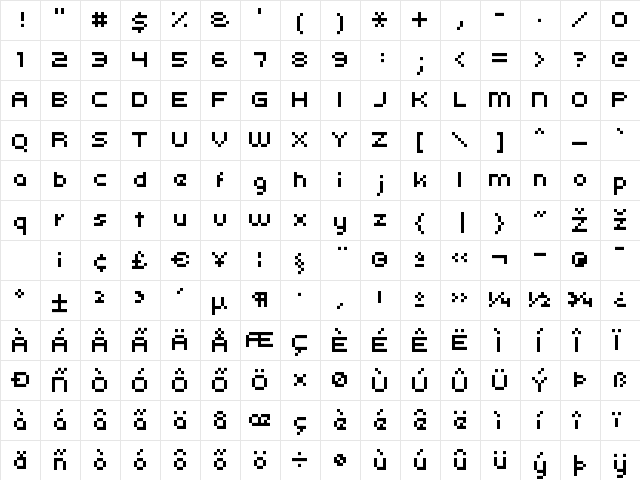
kroeger 05_53 Regular
| Foundry | Adobe Systems Incorporated |
| Designer | Craig Kroeger |
Design Context for kroeger 05_53 Typeface
kroeger 05_53 is a composed and adaptable typeface that performs quietly and consistently across a wide range of design contexts.